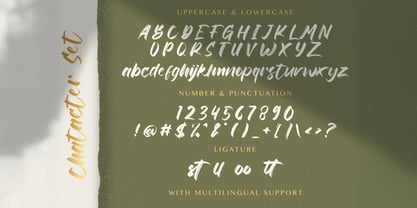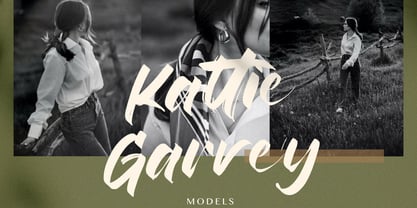
The Rinjany Font Family was designed by Virgiawan Listanto and published by Stringlabs Creative Studio. Rinjany contains 1 styles.
Rinjany is a rugged textured brush font inspired by strength, motion, and raw expression. With bold strokes and a naturally rough texture, it brings a handcrafted, adventurous feel to any design perfect for creatives who want their work to stand tall and speak loud.
Designers: Virgiawan Listanto
Publisher: Stringlabs Creative Studio
Rinjany